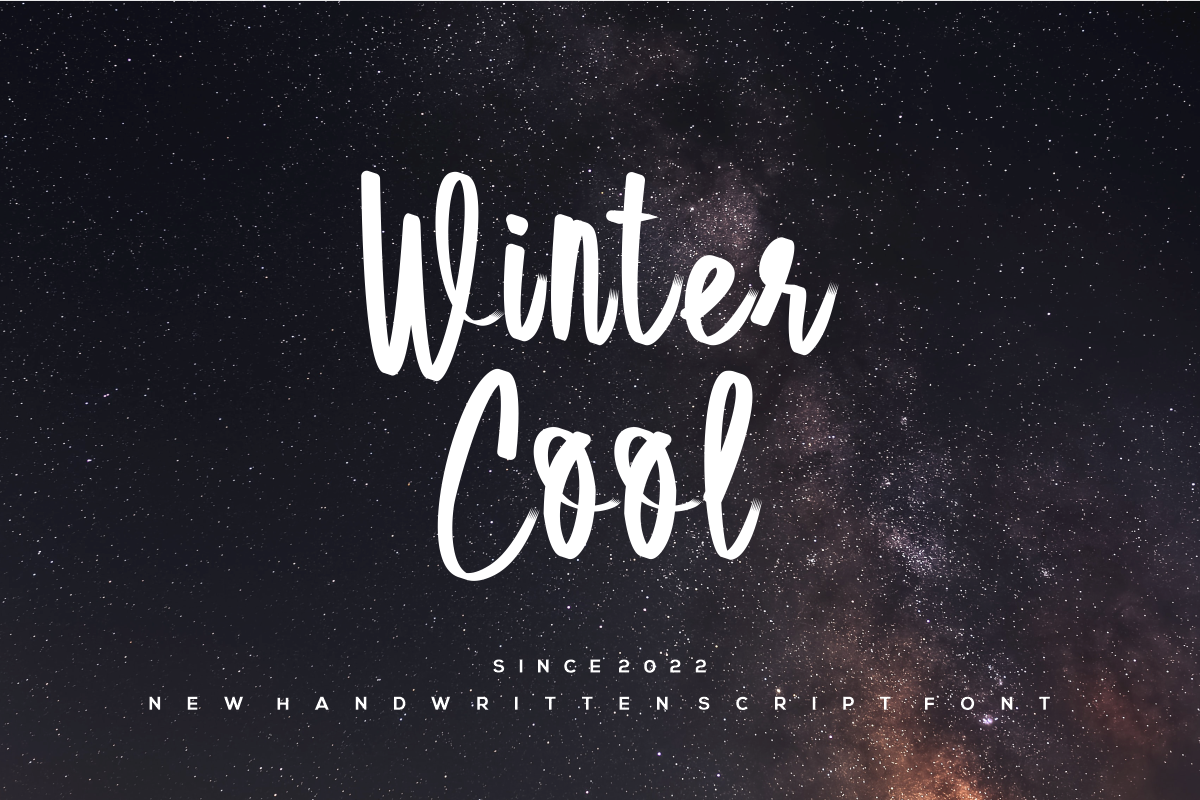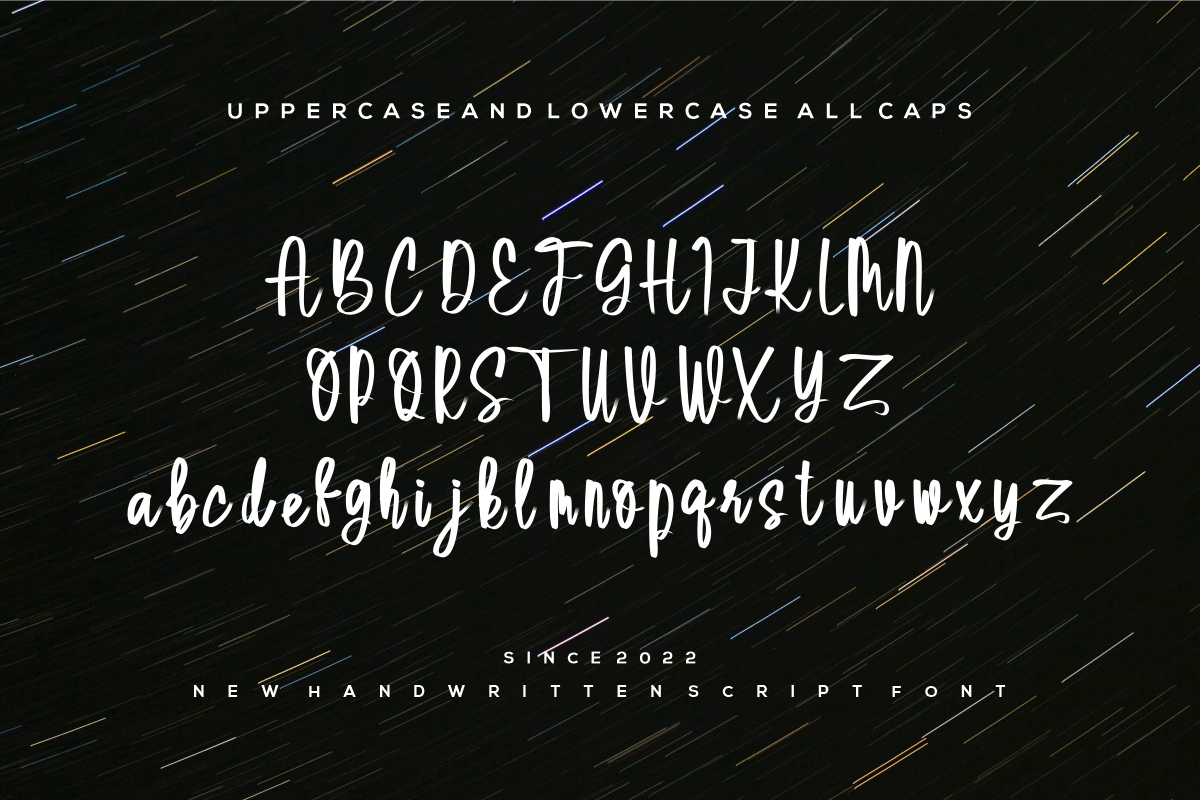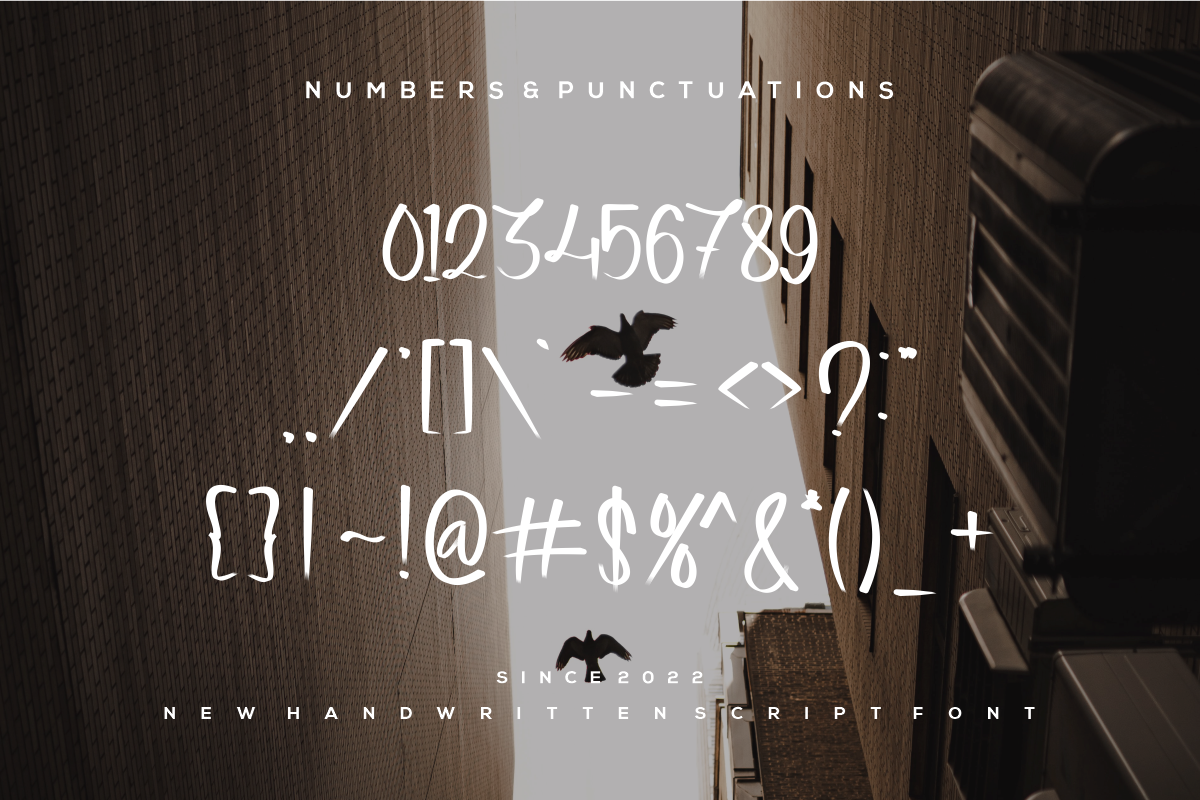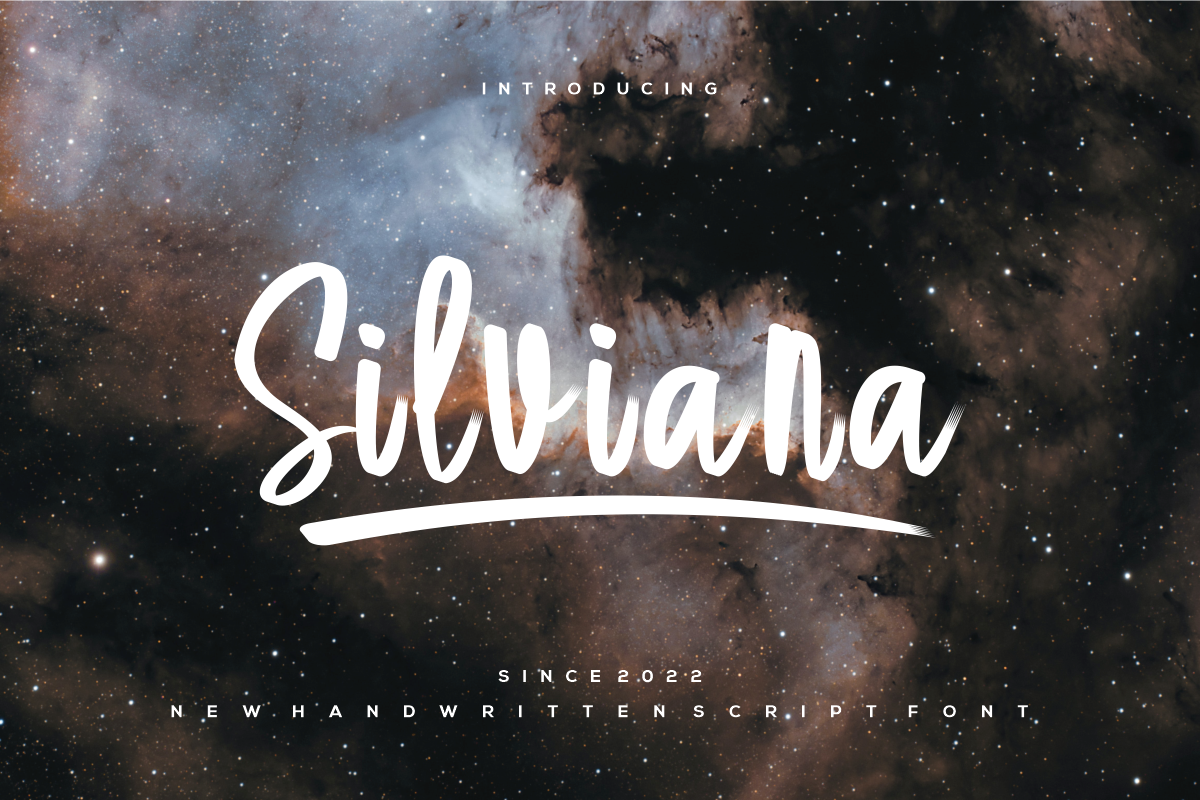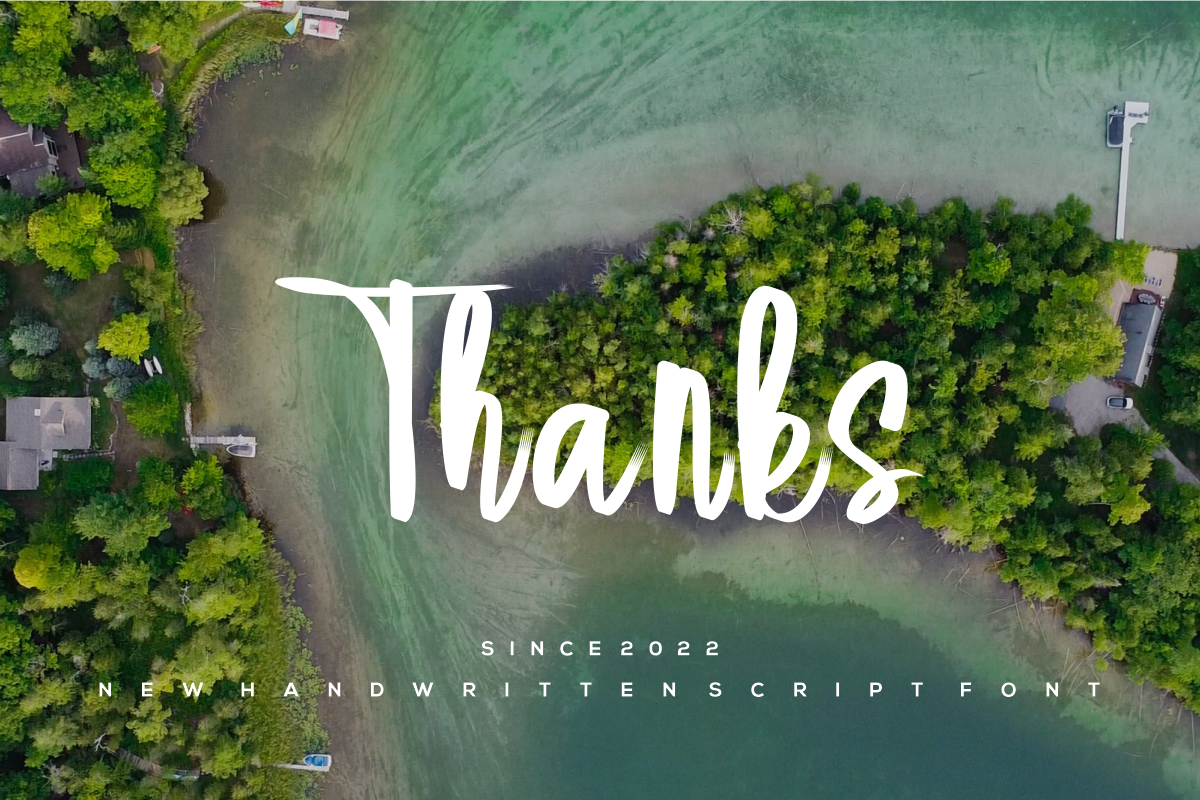
Silviana
Silviana is a sweet and elegant written script font. It retains a classy calligraphic influence while feeling contemporary and fresh. Fall in love with it and take your project to the highest level!